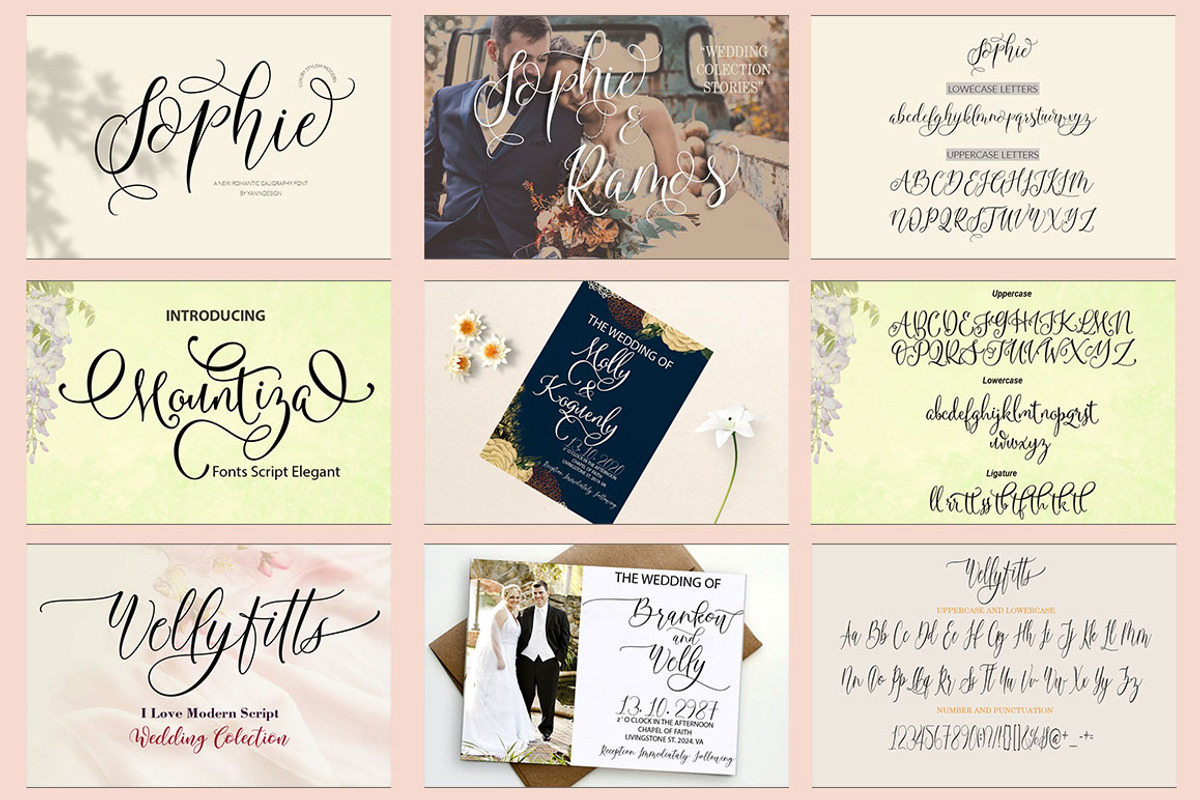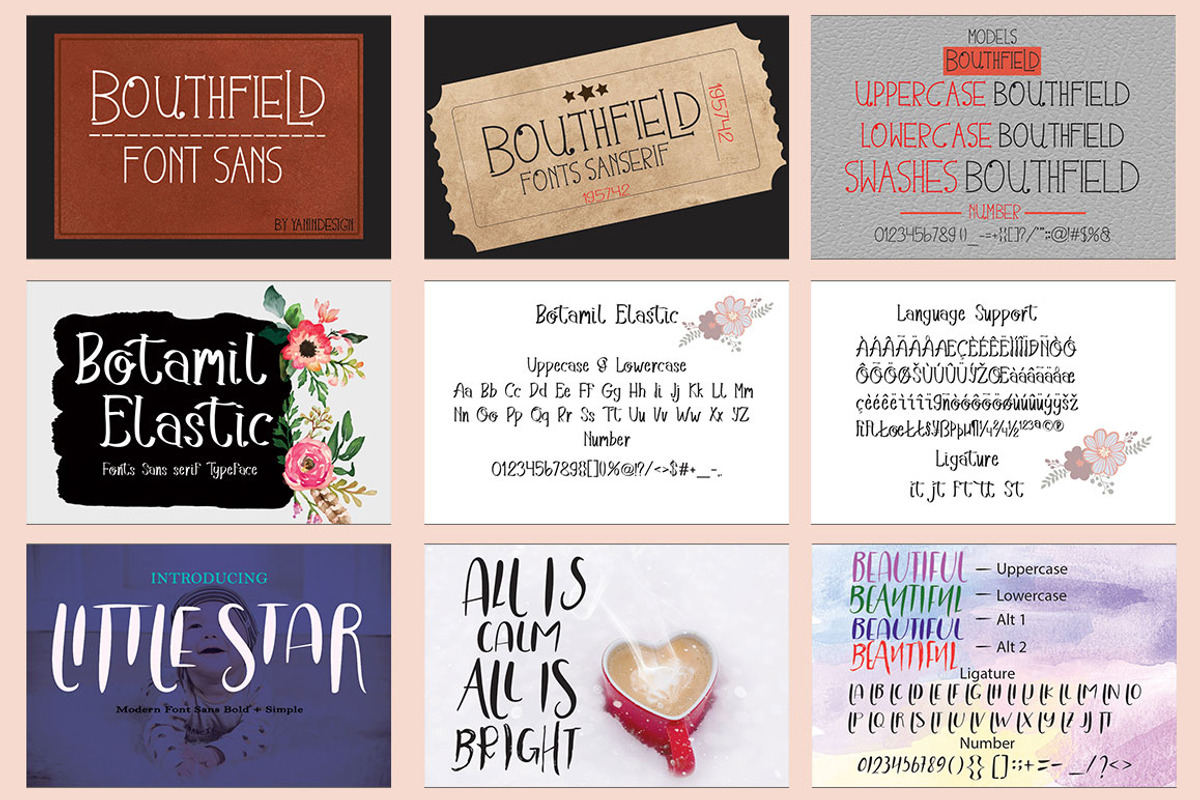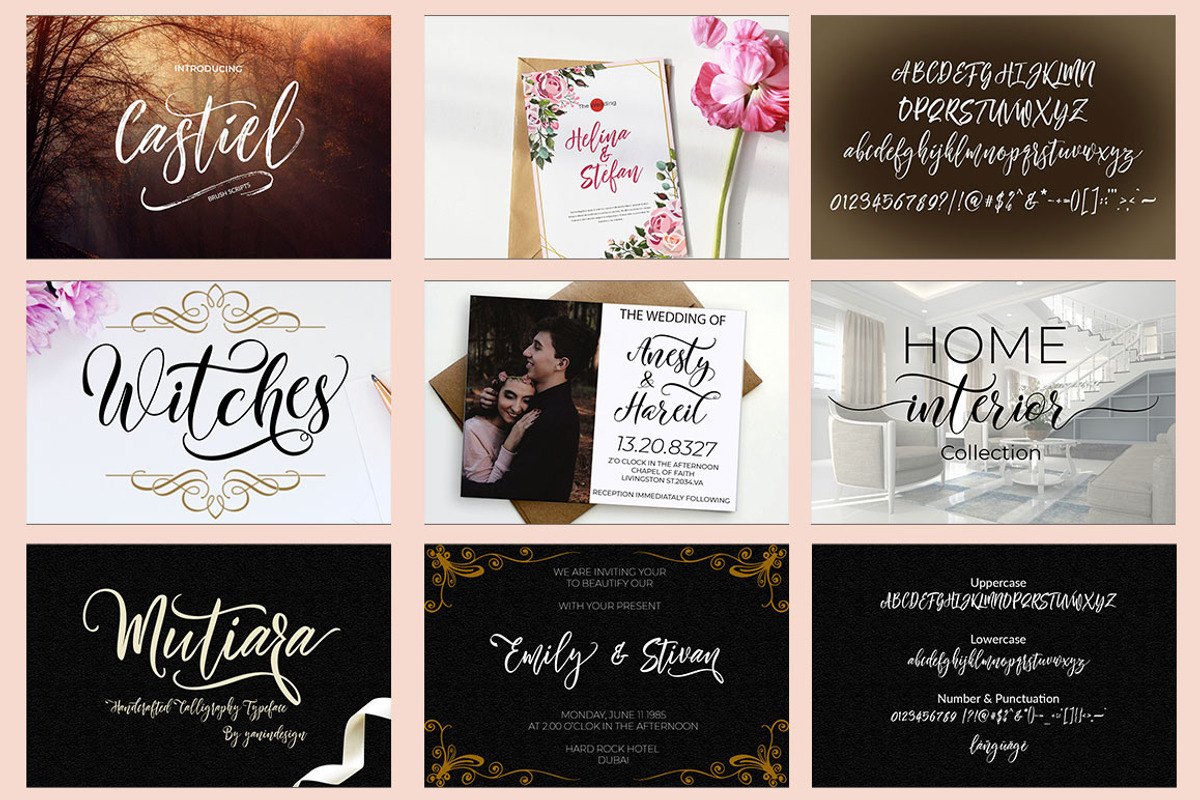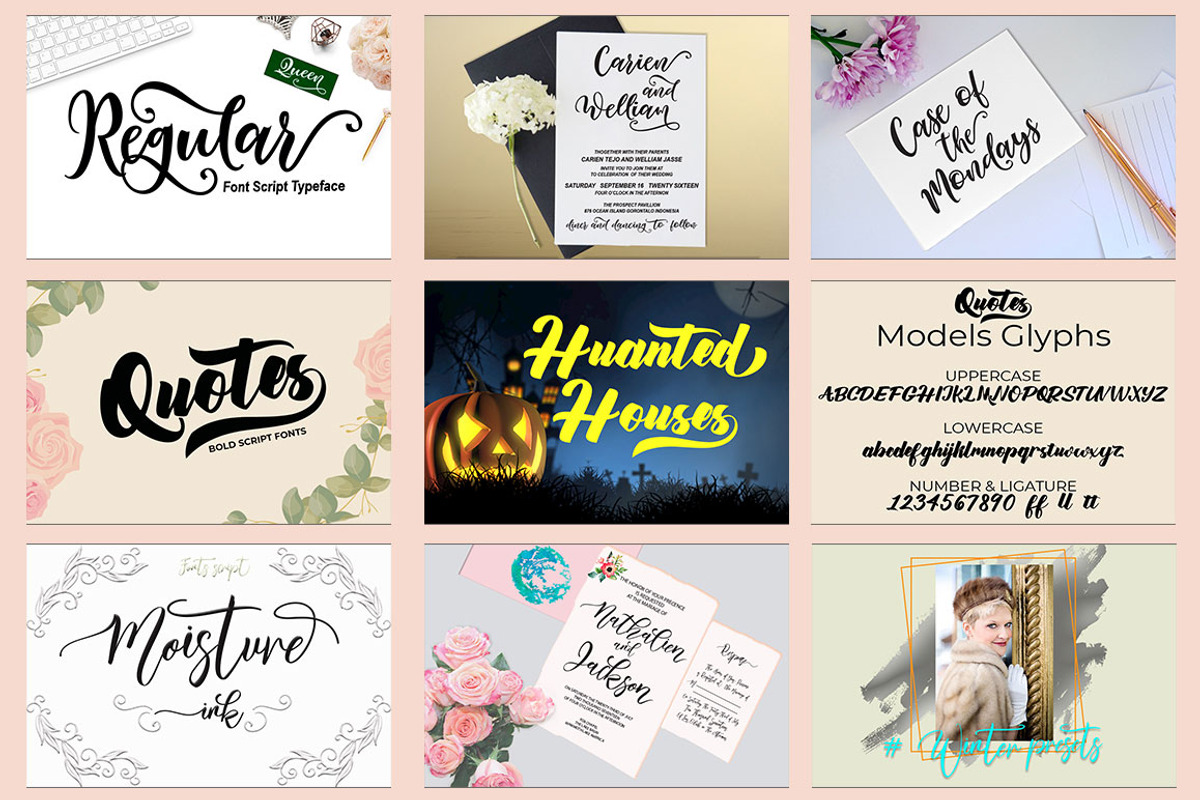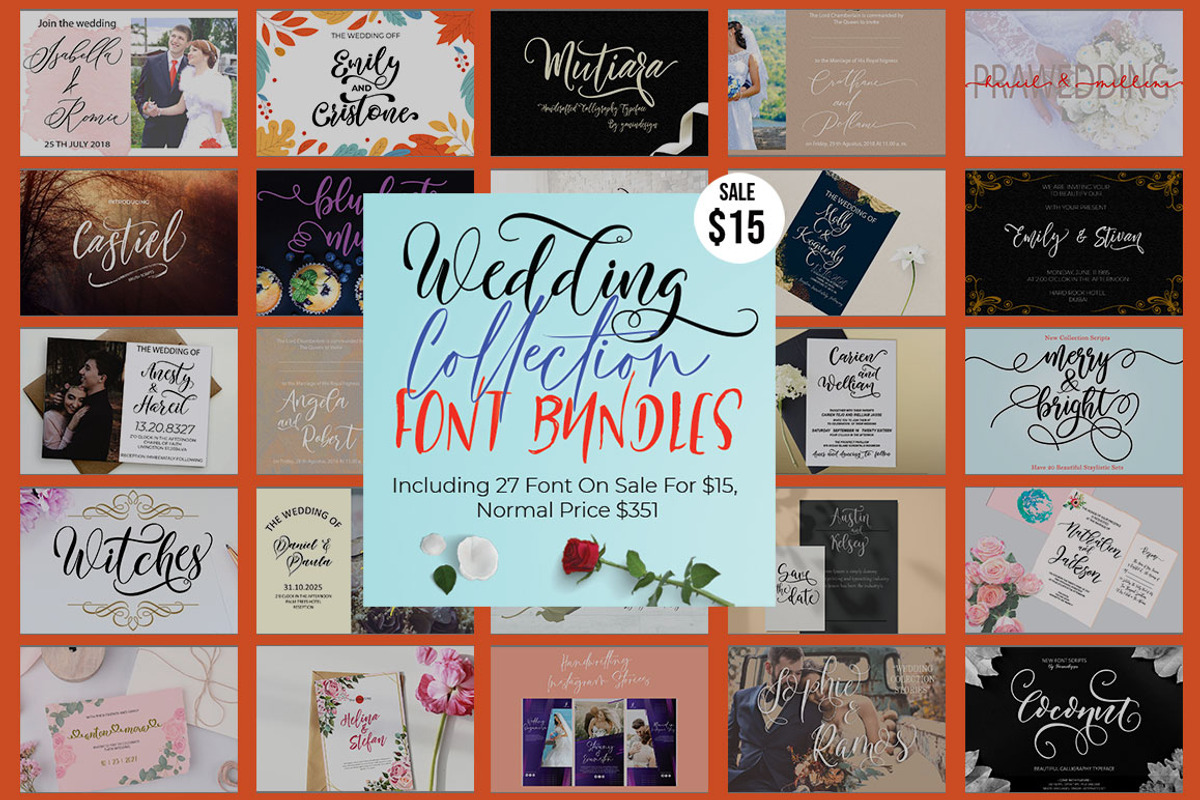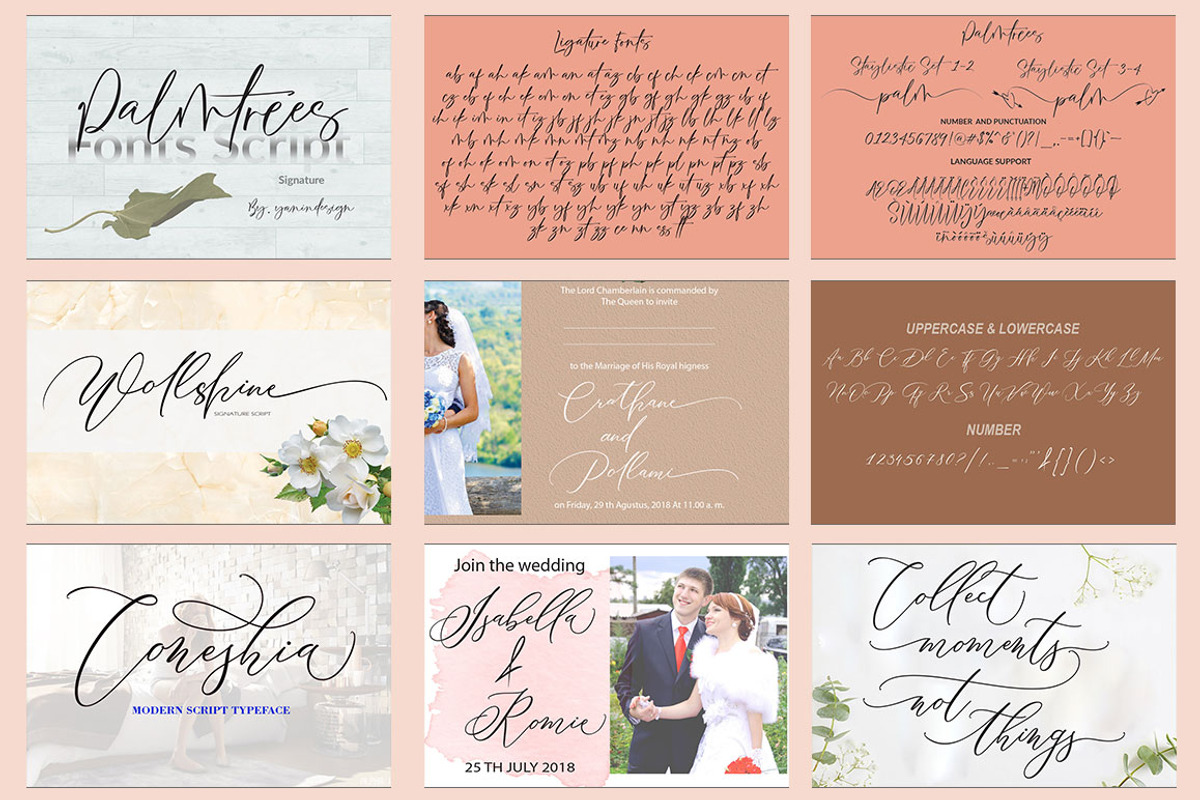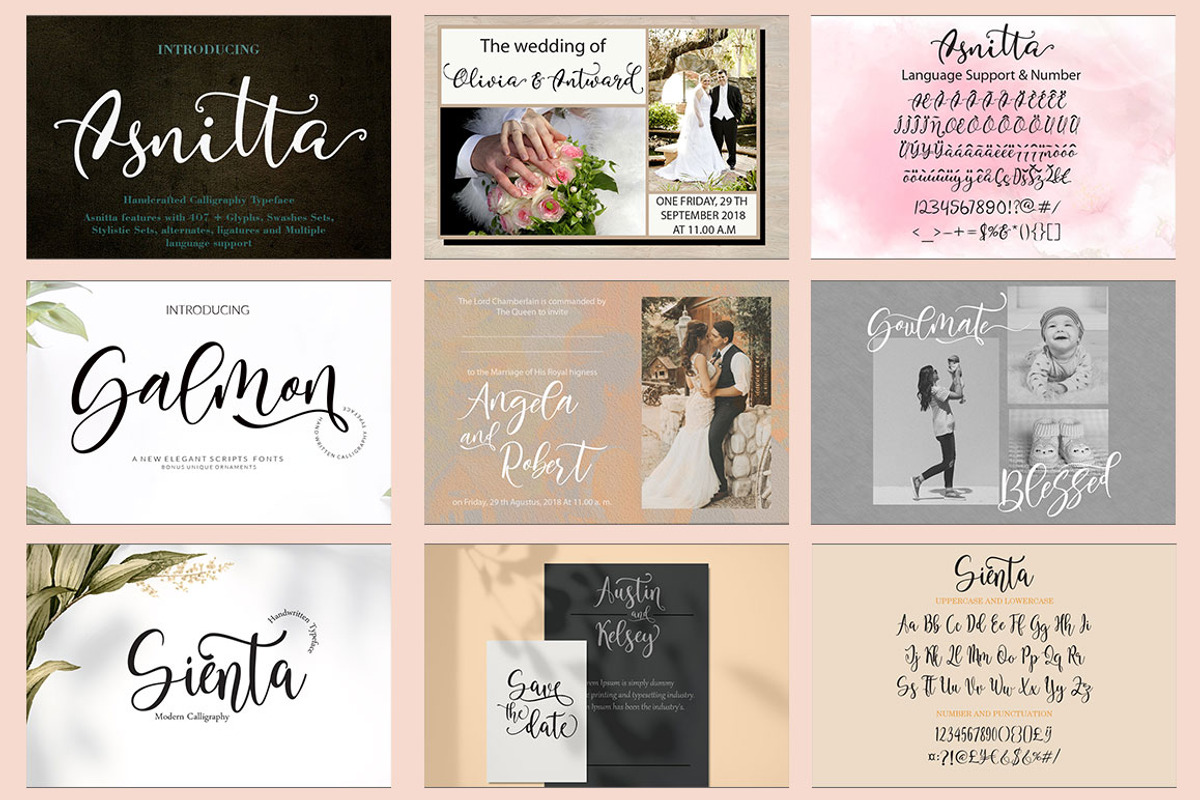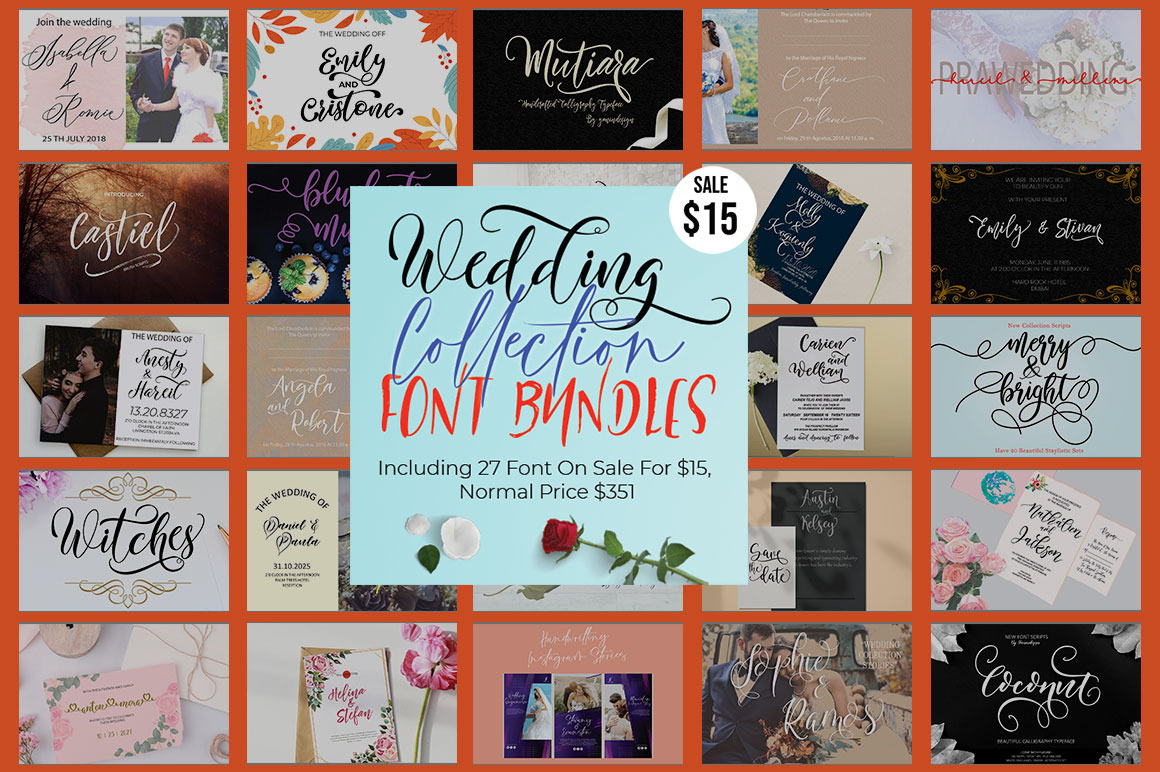
Wedding Collection Font Bundles
This bundle has 27 Handwriting Collection Wedding Fonts in different styles. Perfect for Wedding or Celebration Day Decorations, fun logos, greeting cards, t-shirt designs, stickers, social media and any craft or project. This product includes OTF and TTF files for each font.